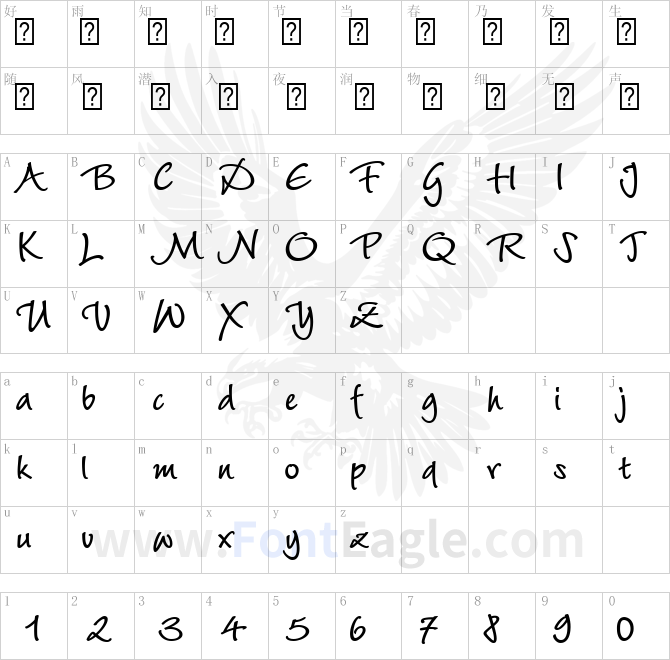
Wiesbaden Swing Com Bold Regular.ttf Font Image
- Font name:Wiesbaden Swing Com Bold
- Font Subfamily ID:Linotype GmbH:Wiesbaden Swing Com Bold:2006
- Font Full Name:Wiesbaden Swing Com Bold